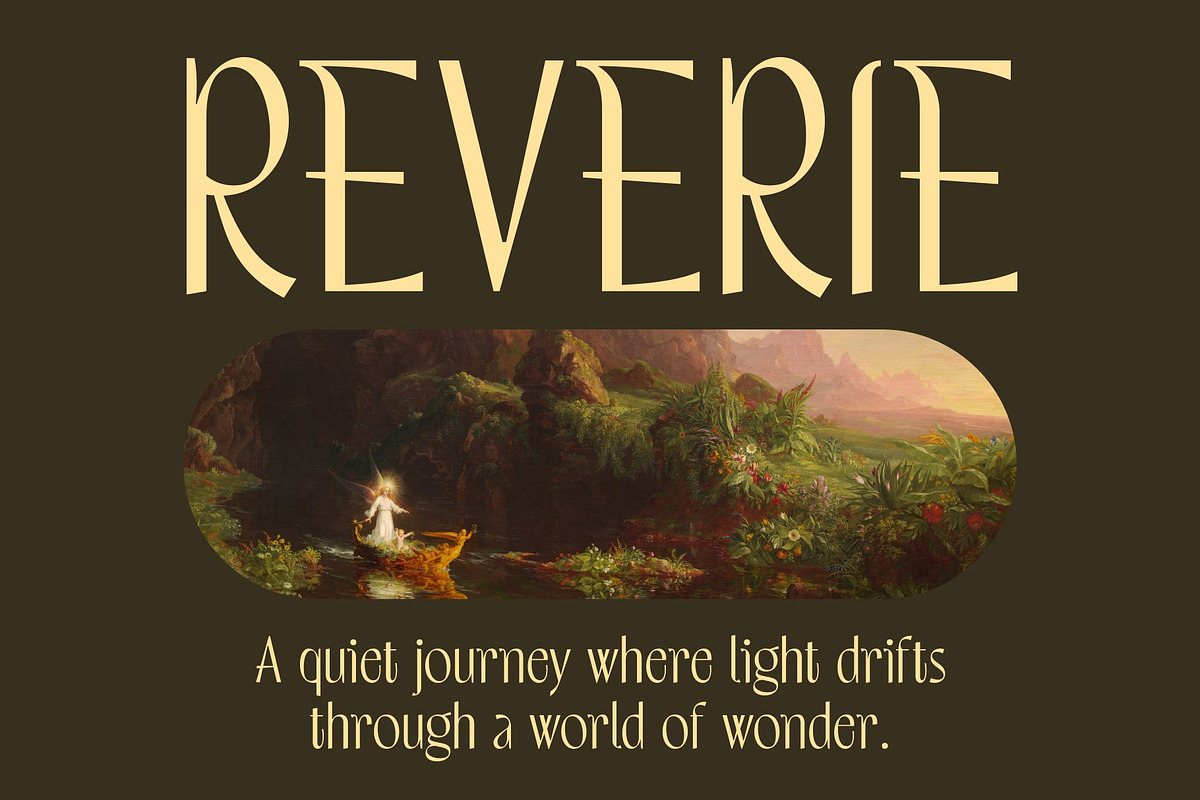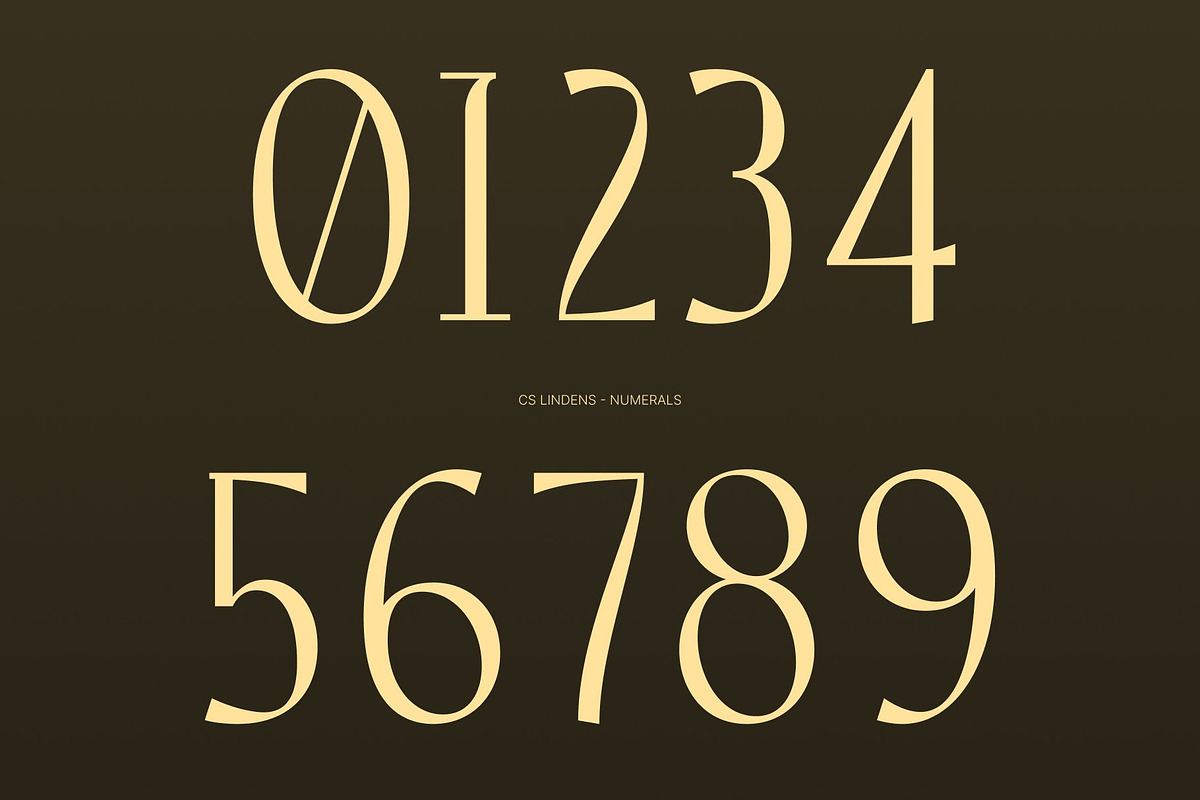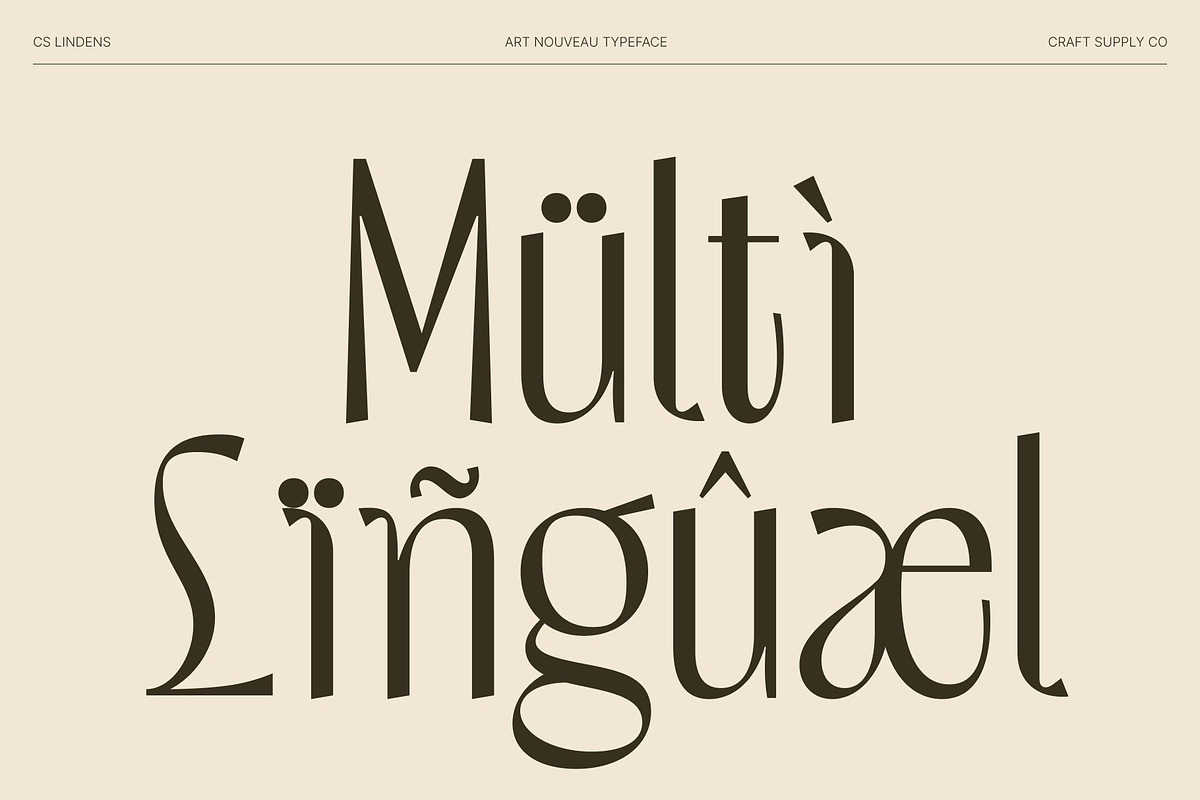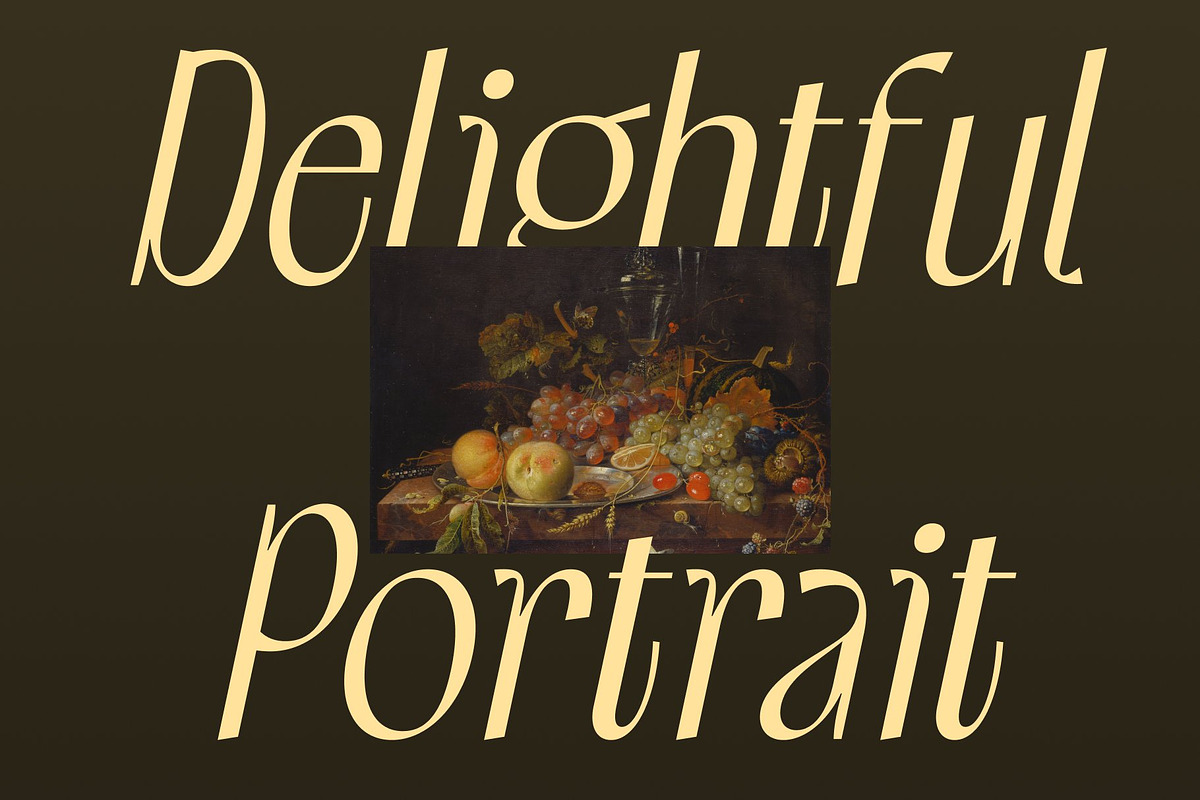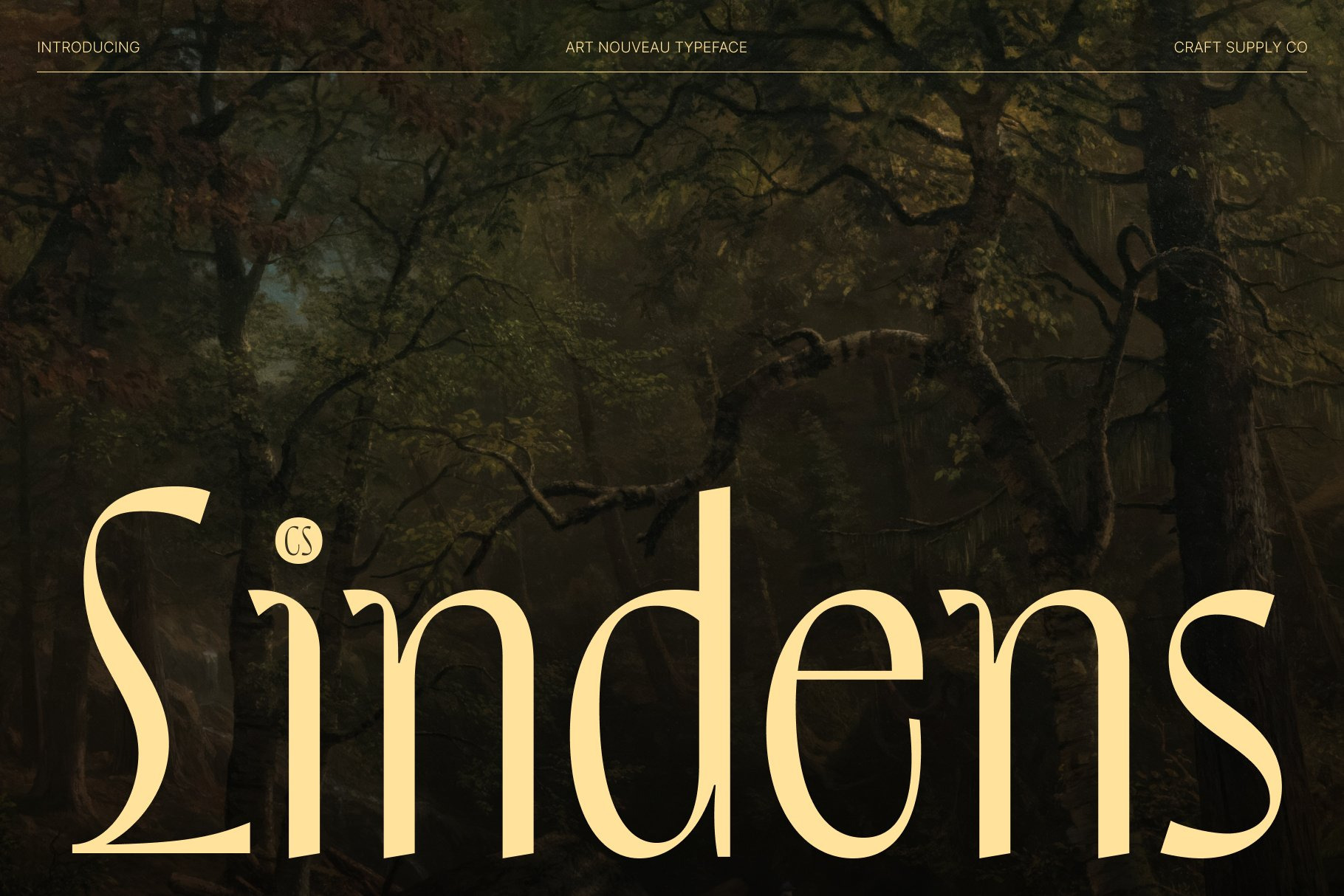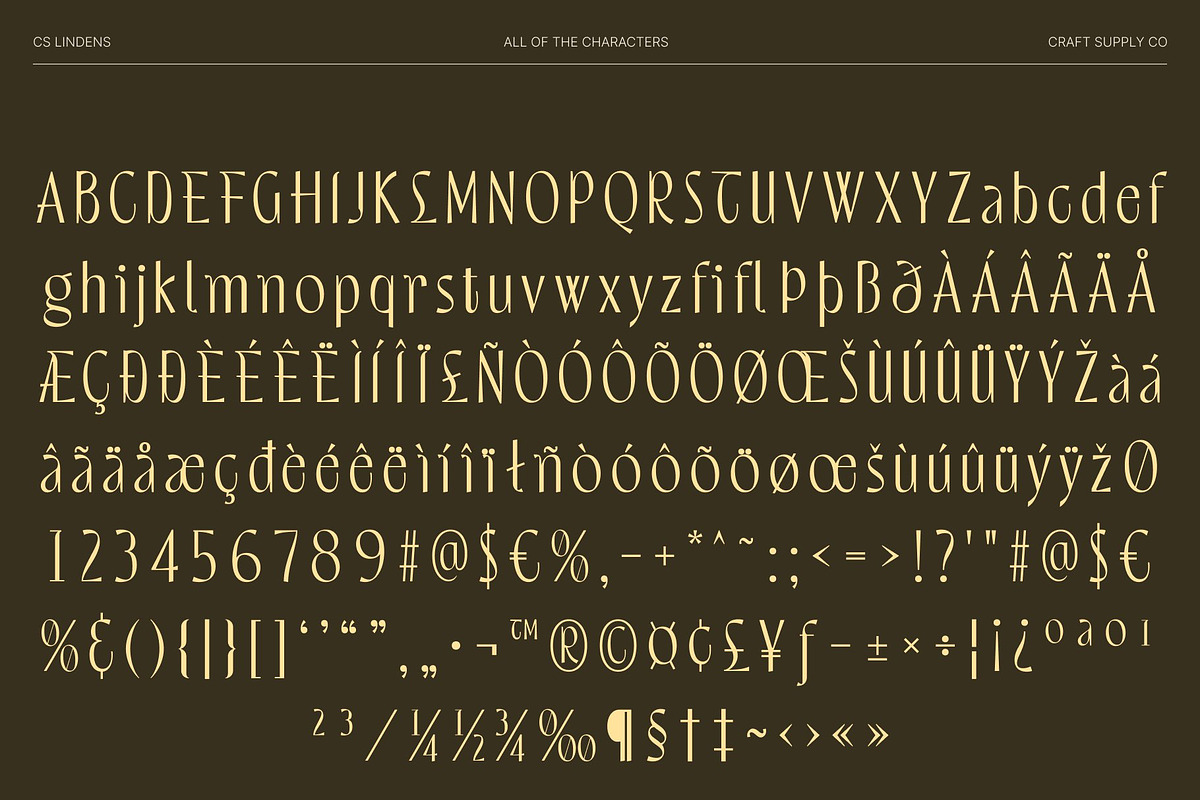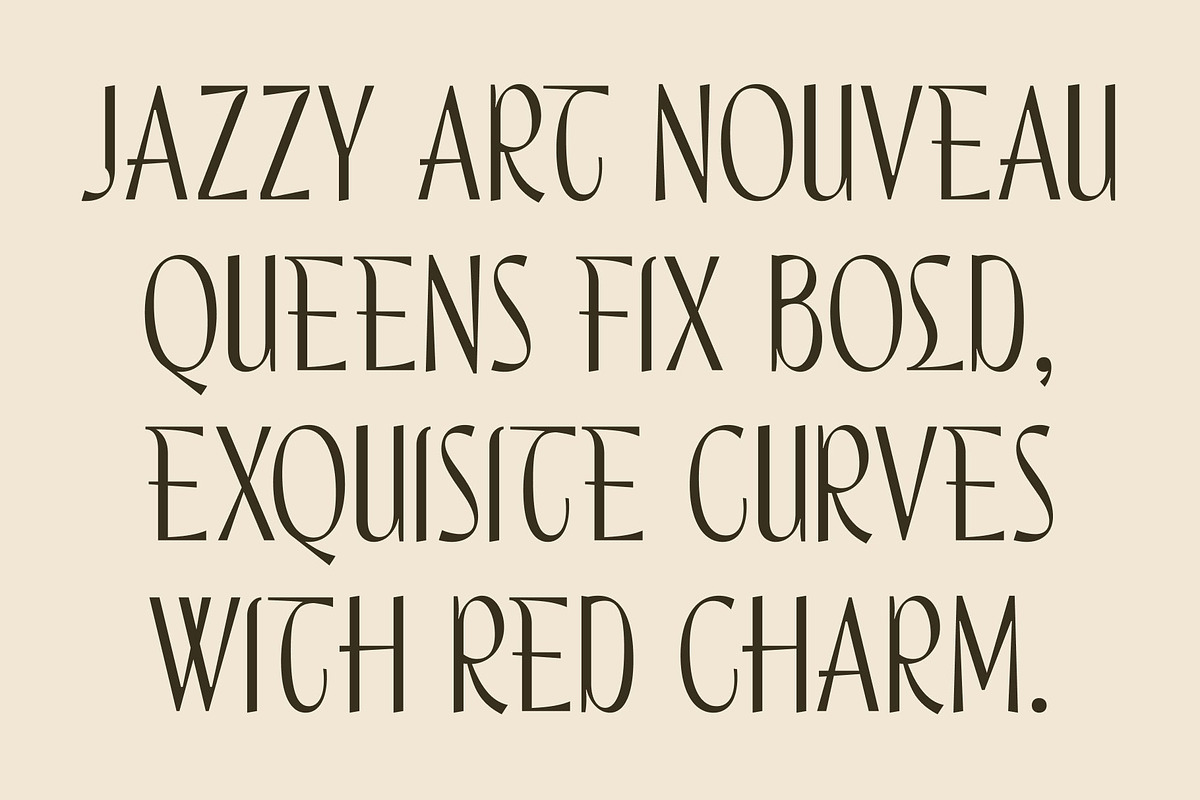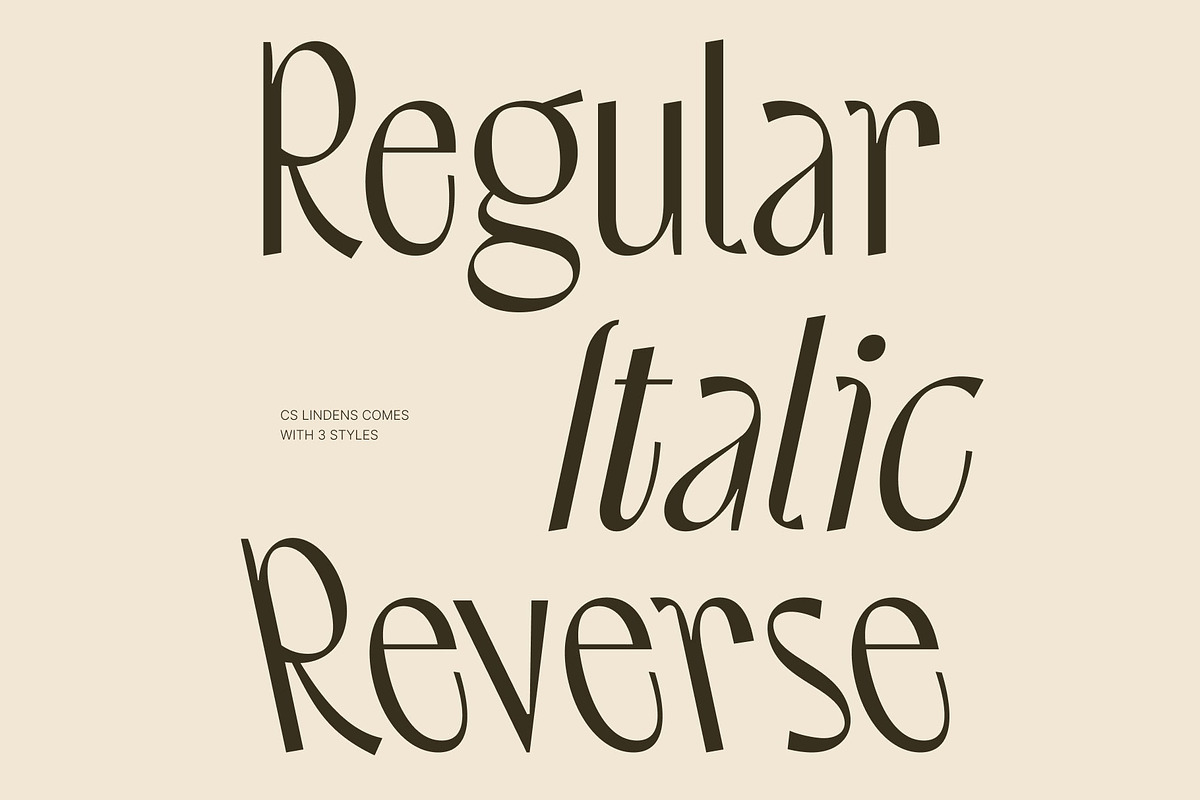
CS Lindens – Aesthetic Font
CS Lindens – Aesthetic Minimalism with Modern Digital Elegance
Aesthetic Sans Serif Font with Clean Contemporary Style This is an aesthetic sans serif font designed to embody minimalism, clarity, and modern beauty. With its clean lines and sleek construction, this font reflects the visual language of contemporary online culture. Its refined simplicity creates a calm yet stylish presence, making an excellent choice for designs that aim to feel modern, elegant, and effortlessly sophisticated.
Minimalist Structure with Sleek Beauty The letterforms of this font are crafted with a minimalist approach, focusing on balance, spacing, and smooth geometry. Every character feels light, precise, and intentional, allowing content to stand out clearly. This clean and sleek structure enhances readability while delivering an elegant aesthetic that feels both fashionable and timeless.
Modern Digital Vibe with Aesthetic Appeal This font captures the essence of modern digital and lifestyle trends. Its understated elegance aligns perfectly with contemporary branding and online visuals, especially within fashion and lifestyle spaces. The font communicates a sense of luxury through simplicity, making it ideal for designs that value subtlety, mood, and visual harmony.
Perfect for Social Media, Fashion, and Lifestyle Branding Designed for versatile modern use, this font is perfect for social media content, luxury design, fashion branding, lifestyle identities, and clean website layouts. Its aesthetic sans serif form enhances posts, logos, packaging, and promotional visuals with a refined and professional look.
- CS Lindens Regular
- CS Lindens Italic
- CS Lindens Reverse Italic